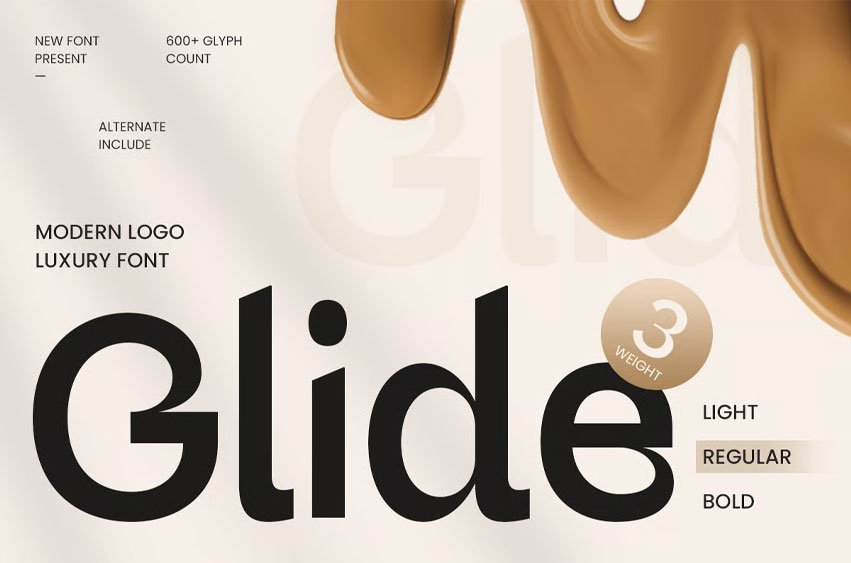
Glide Logo Font
Glide Logo Font is a modern branding logo font family designed for professionals and creatives who want clean, versatile, and contemporary typography. Perfect for logos, branding, posters, digital products, and corporate identities, Glide brings clarity, elegance, and a polished aesthetic to every project.
With balanced proportions and sleek letterforms, Glide ensures readability while maintaining a modern, stylish presence in both print and digital applications. Its versatility makes it ideal for a wide range of design needs.
Glide – Modern Branding Logo Font Family Features
• Elegant and versatile font family
• Available with Light, Regular, and Bold Weights
• Perfect for branding, logos, and digital designs
• Uppercase, lowercase, numerals, and punctuation included
• OpenType features for extra flexibility
Enhance your branding projects with Glide – a clean, modern, and versatile logo font family.